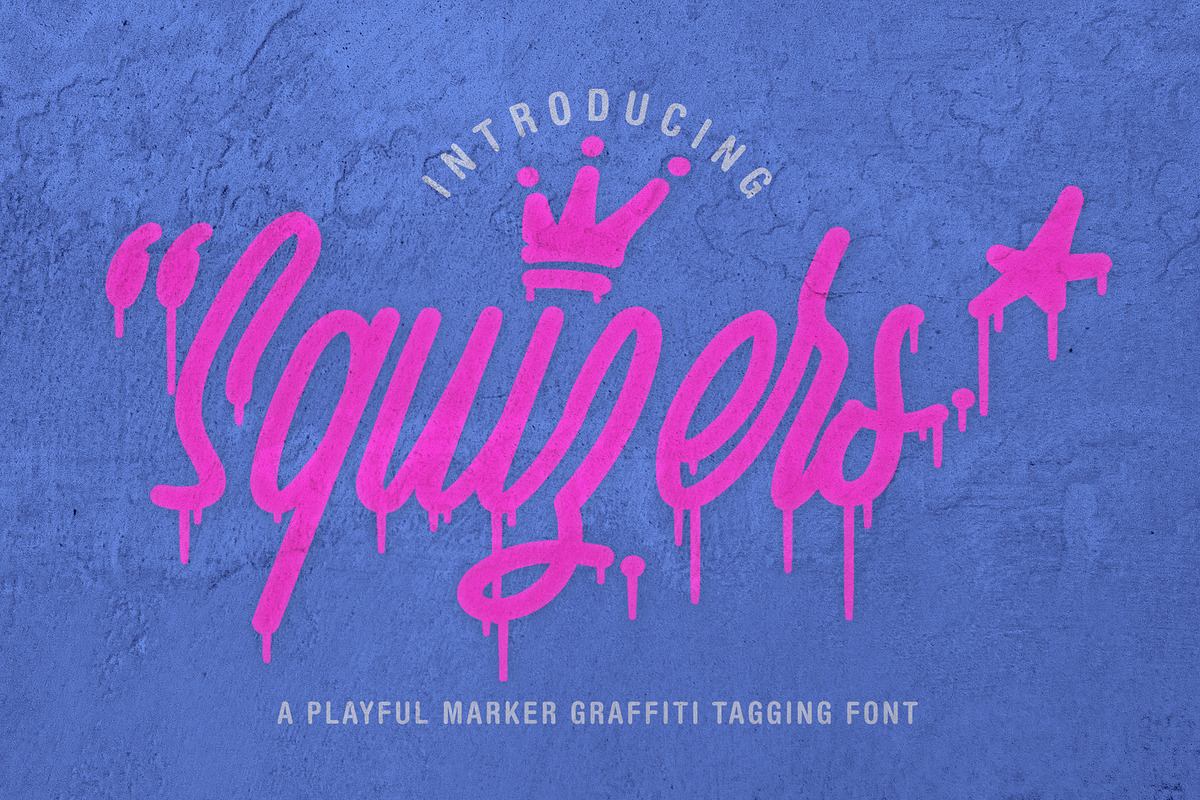
Squizers – Graffiti Font Free Download
Squizers – Graffiti Font Free Download is a bold and energetic display typeface inspired by urban street art and graffiti culture. With its sharp edges, distorted shapes, and dynamic letterforms, this font is perfect for posters, logos, music album covers, and anything that demands a rebellious, artistic flair.
The font's unique design captures the essence of street art, making it ideal for designs that need to make a statement. Whether you’re creating for a streetwear brand, an underground event, or a creative project, Squizers adds authenticity and energy to your typography.